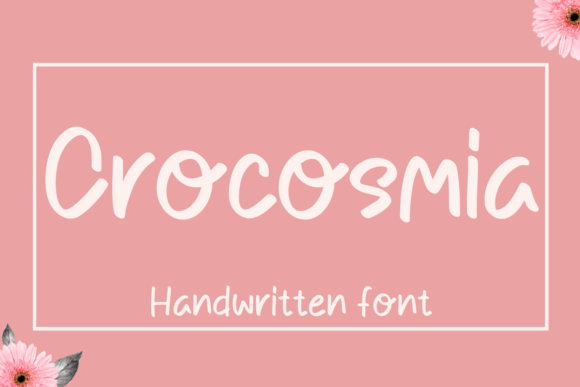
Prepare to be captivated by Crocosmia Font, an exquisite script font family that will unleash your creativity like never before. Step into a world of boundless possibilities, where this playful handwritten sans serif font awaits you, ready to transform your designs into masterpieces.
With its incredibly distinct and timeless style, Crocosmia Font is a breath of fresh air, leaving an unforgettable impression on all who encounter it. Embark on a journey of artistic expression, where your imagination knows no limits.
See your designs flourish with the charm and elegance that Crocosmia Font effortlessly exudes. From Easter's vibrant festivities to the excitement of back-to-school, Crocosmia Font will add a touch of magic to every occasion. Create breathtaking wedding invitations that capture the essence of love, or let your imagination run wild as you design party decorations that radiate joy and merriment.
Make your designs dance with delight during the Fall, Halloween, and Christmas seasons, as Crocosmia Font weaves its spell, captivating all who lay eyes upon it. Create posters that command attention, blogs that captivate, and clothing that exudes personality. Child-related designs take on a new life, greeting cards become heartfelt expressions, and cloth bags and mugs transform into cherished keepsakes.
The digital world awaits your creative touch, as Crocosmia Font graces your social media posts with its charm. Whether you're crafting digital designs, delivering impactful presentations, or creating heartfelt greeting cards, Crocosmia Font will elevate your projects to new heights.
With Crocosmia Font, you can confidently embark on any creative endeavor, knowing that your designs will shine with brilliance. Let your creativity soar, embrace the possibilities, and watch as Crocosmia Font transforms your vision into reality. Indulge in the joy of creation and revel in the beauty that unfolds before you.